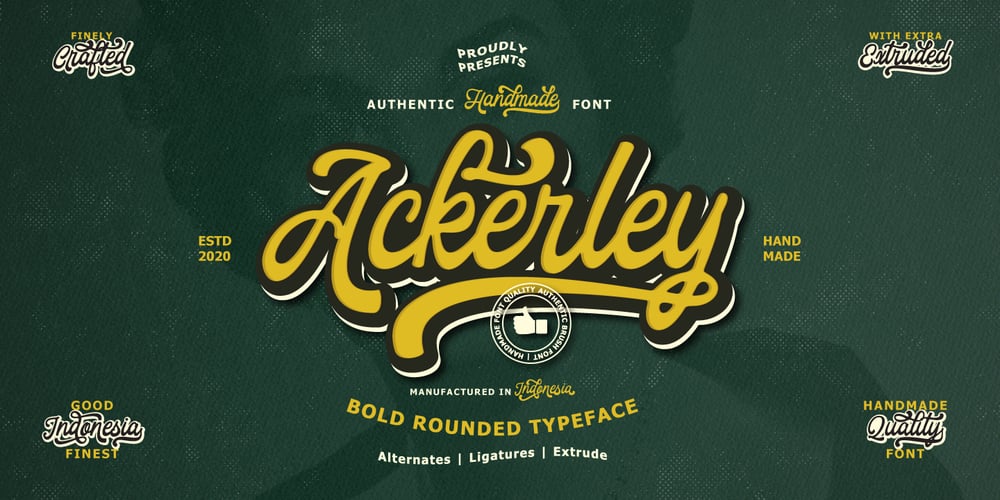
Ackerley Script
Ackerley Script font
Ackerley Script Font Family was designed by Ferdiansyah and published by ijemrockart. Ackerley Script contains 2 styles and family package options. Ackerley Script is a new carefully crafted and nicely balanced curves on a script typefaces with personality. You can use it as a logo, badges, insignia, packaging, headlines, posters, t-shirt/apparel, greeting cards, and wedding invitations.The flowing characters are ideal to make an attractive message. Mix and match Ackerley Script with a bunch of alternative characters to fit your project.The alternative characters in this font were divided into several OpenType features such as Stylistic Alternates, Stylistic Sets, and Ligature. The OpenType features can be accessed by using the OpenType program such as Adobe Illustrator, Adobe Photoshop, and Adobe InDesign.That’s it! I really hope you enjoy it – please do let me know what you think. More importantly, please don’t hesitate to drop me a message if you have any issues or queries.Thank you!